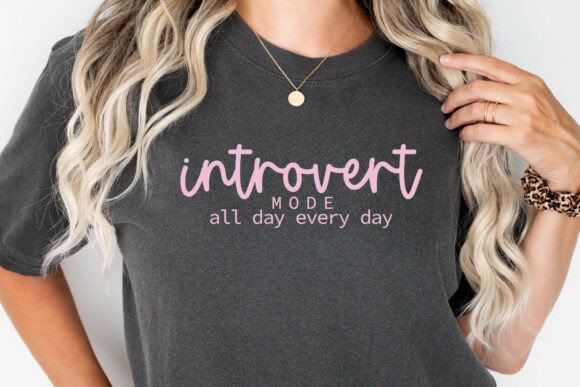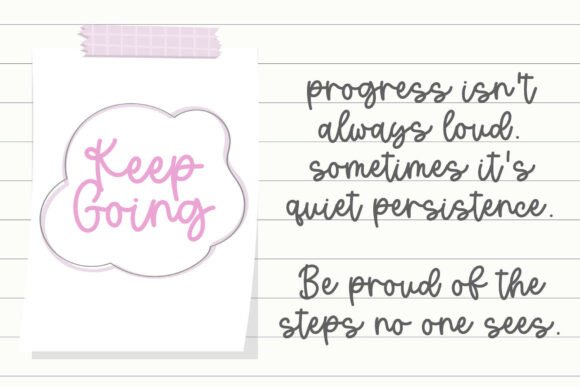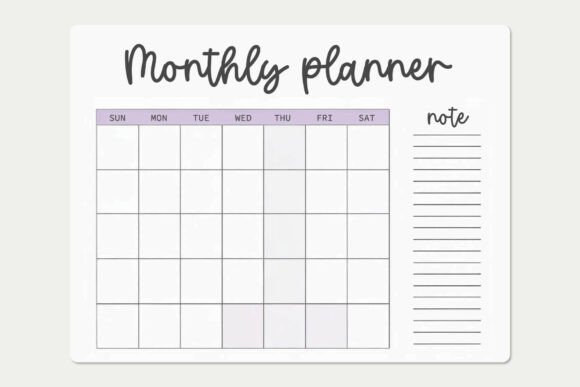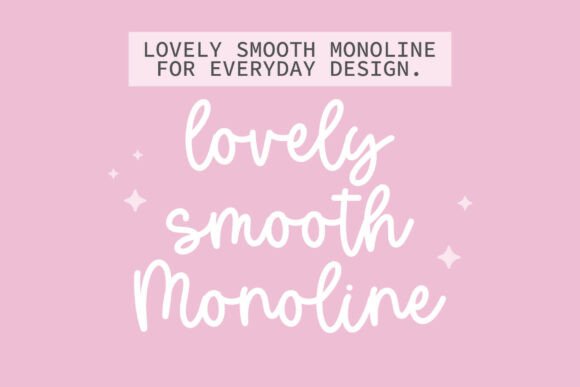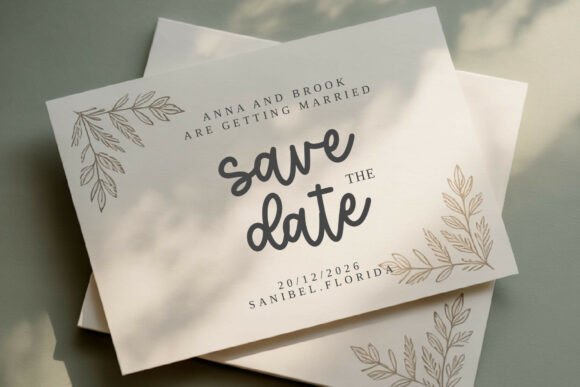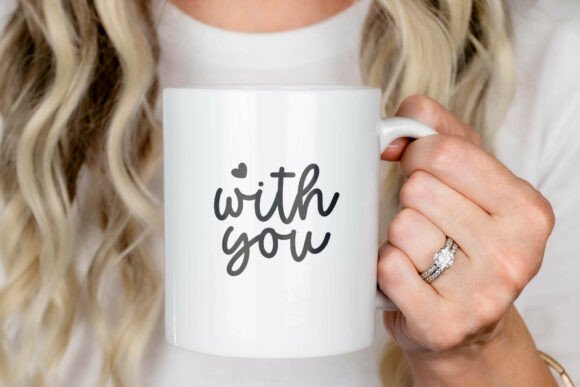
Discover the Charm of Gratefulmoments Font: Elevate Your Designs with a Smooth Handwritten Script
Are you looking for a font that adds a personal touch to your designs? Look no further than the Gratefulmoments Font, a smooth handwritten script font in a cute monoline style. This charming typeface is perfect for Cricut crafts, SVG cut files, digital planners, greeting cards, invitations, and custom shirts. With its warm and sincere feel, Gratefulmoments Font is sure to elevate your designs and bring a touch of joy and gratitude to your projects.
The Characteristics of Gratefulmoments Font
The Grateful Moments Smooth Monoline Handwritten Font is a unique and elegant typeface that boasts a fluid monoline structure. This structure gives the font a balanced elegance while maintaining the natural flow of authentic handwriting. The rounded edges and smooth lines create a friendly and approachable mood, making it ideal for designs that require a personal and uplifting touch.
One of the standout features of Gratefulmoments Font is its ability to radiate warmth and sincerity through every curve and stroke. This makes it perfect for designs that require a human touch, such as wedding invitations, heartfelt quotes, greeting cards, and branding. The font’s smooth and flowing lines also make it perfect for digital projects that need a cozy yet polished feel.
Gratefulmoments Font is a versatile tool that can be used by designers and crafters alike. Whether you’re creating custom shirts, digital planners, or greeting cards, this font is sure to add a personal touch to your designs. The font’s smooth monoline style makes it easy to read and understand, making it perfect for designs that require a clear and concise message.
For Cricut crafters, Gratefulmoments Font is a dream come true. The font’s smooth lines and rounded edges make it perfect for cutting files, and its elegant style ensures that your designs will look professional and polished. For digital designers, the font’s versatility and elegance make it perfect for a wide range of projects, from branding to social media graphics.
Bringing Joy and Gratitude to Your Designs
Gratefulmoments Font is more than just a font – it’s a way to bring joy and gratitude to your designs. The font’s charming and heartfelt style makes it perfect for designs that require a personal touch, such as wedding invitations, birthday cards, and thank-you notes. With Gratefulmoments Font, you can effortlessly transform words into emotions and bring a human touch to any design.
The font’s ability to capture the essence of joy and gratitude makes it perfect for designs that require a positive and uplifting message. Whether you’re creating a digital planner, a greeting card, or a custom shirt, Gratefulmoments Font is sure to add a touch of warmth and sincerity to your design.
Key Features of Gratefulmoments Font
• Smooth handwritten script font in a cute monoline style
• Perfect for Cricut crafts, SVG cut files, digital planners, greeting cards, invitations, and custom shirts
• Fluid monoline structure for a balanced elegance
• Rounded edges and smooth lines for a friendly and approachable mood
• Perfect for designs that require a personal and uplifting touch
• Captures the essence of joy, gratitude, and creativity
In conclusion, Gratefulmoments Font is a charming and elegant typeface that is perfect for designers and crafters alike. With its smooth monoline style, fluid structure, and rounded edges, this font is sure to add a personal touch to any design. Whether you’re creating custom shirts, digital planners, or greeting cards, Gratefulmoments Font is the perfect choice for bringing joy and gratitude to your designs.